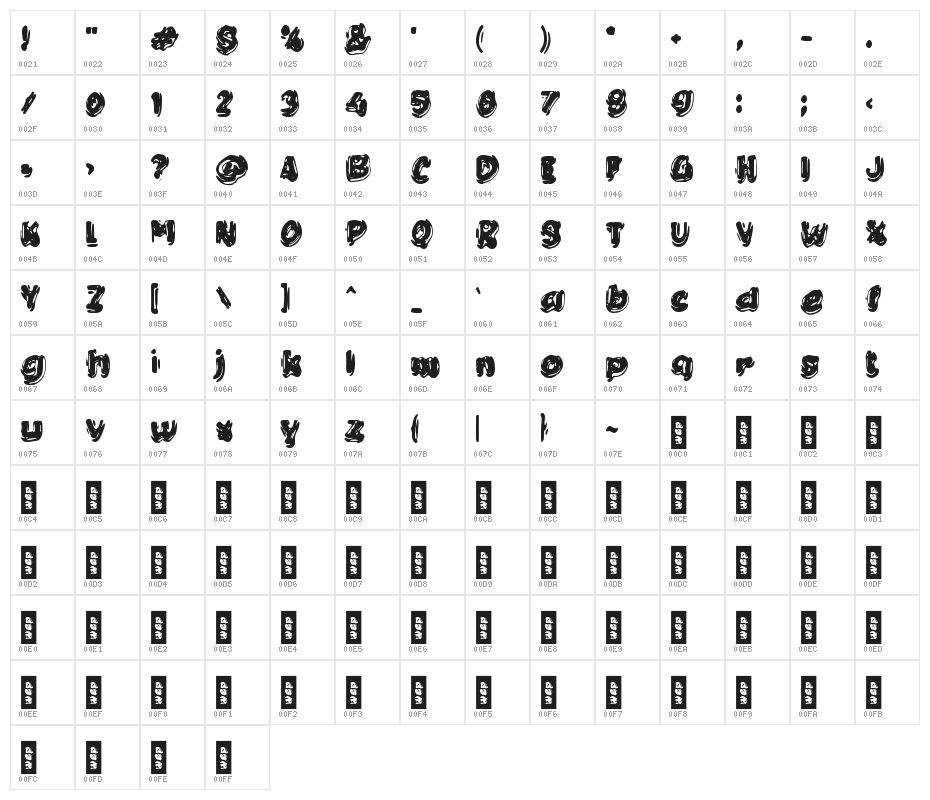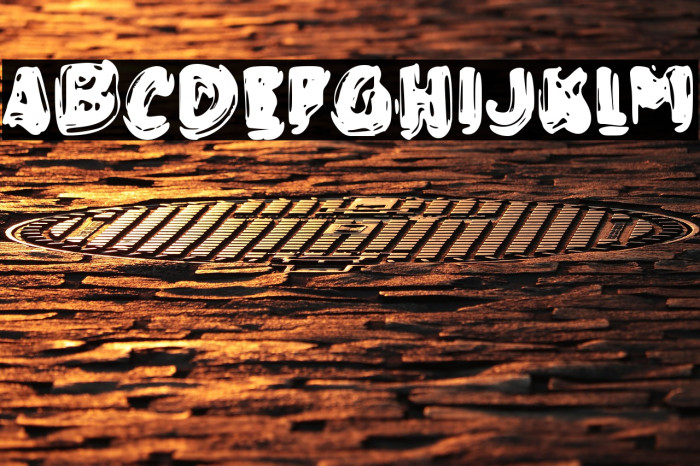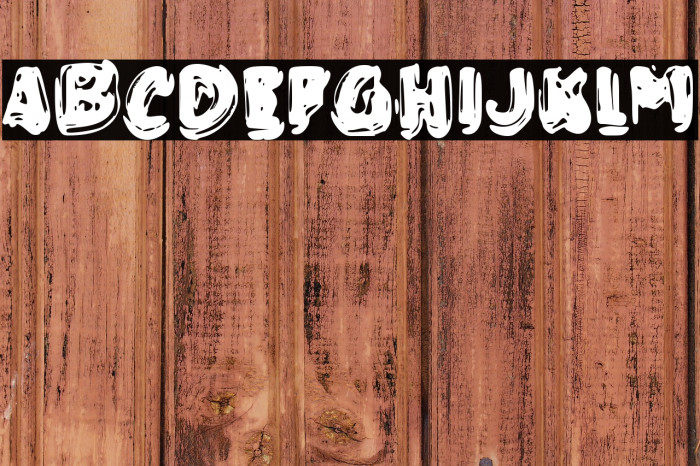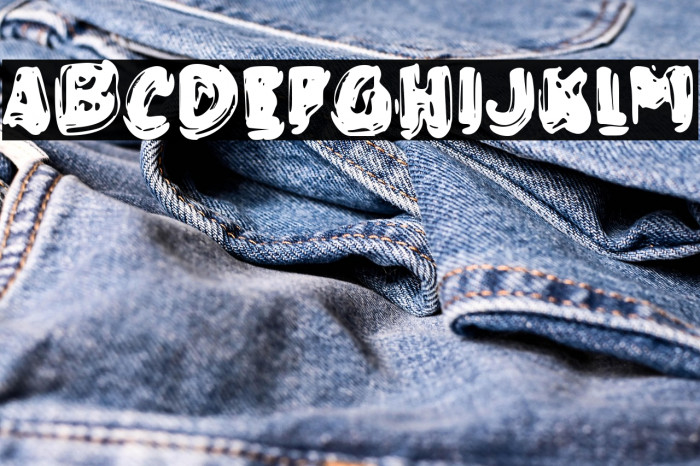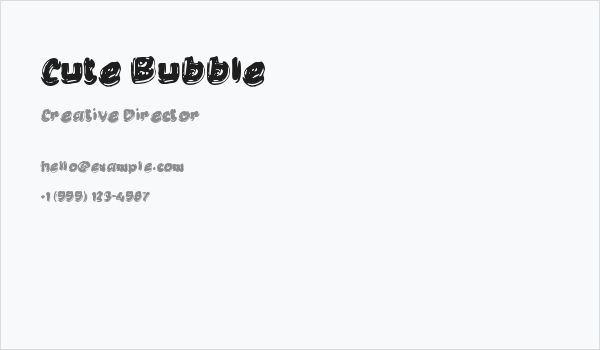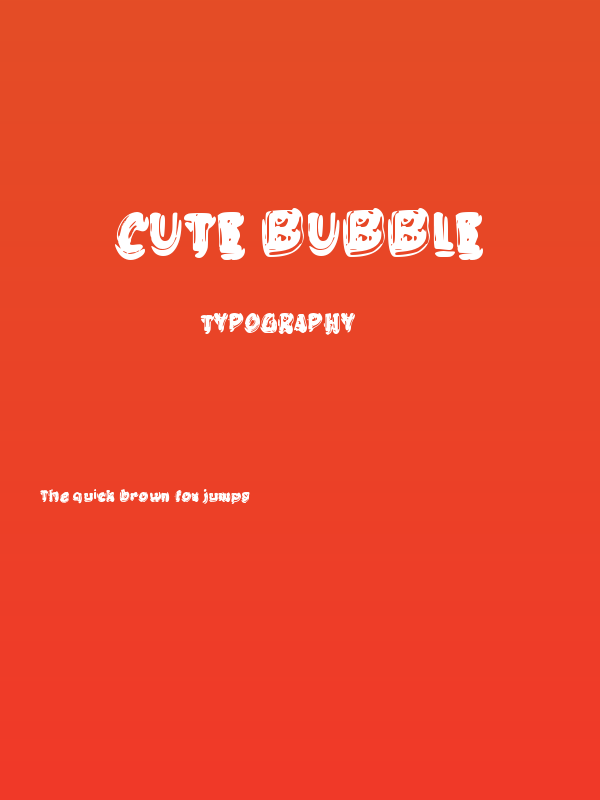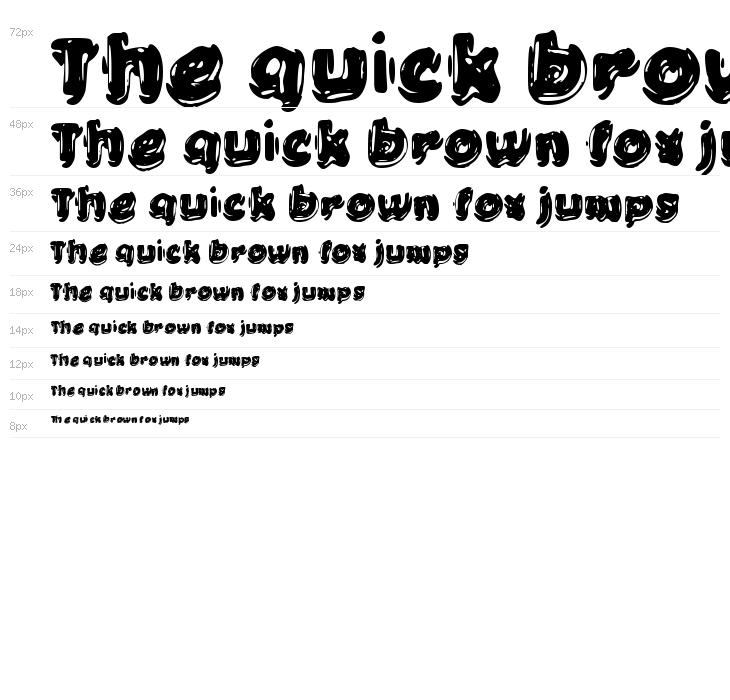
Cute Bubble Font
Cute Bubble Description
This playful and bubbly font features thick, rounded characters with a whimsical and cartoonish style. The letters are bold and have a hand-drawn appearance, giving them a lively and energetic feel. The strokes are uneven, adding to the casual and fun aesthetic. This font is highly decorative, with a unique charm that makes it stand out. It is perfect for projects that require a touch of humor and creativity. The font includes a full set of uppercase and lowercase letters, numbers, and a variety of special characters, all maintaining the same playful design.
| Overall Style | Playful, Cartoonish |